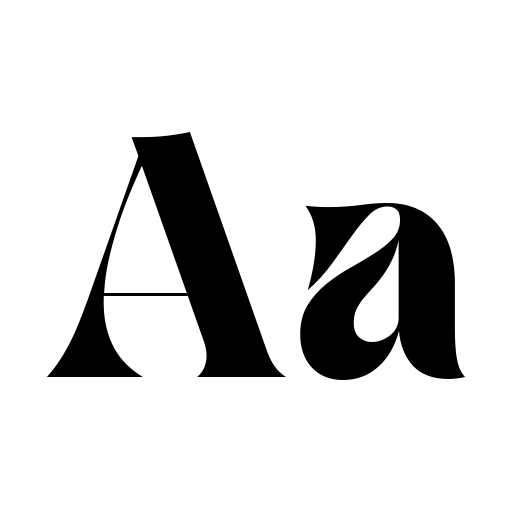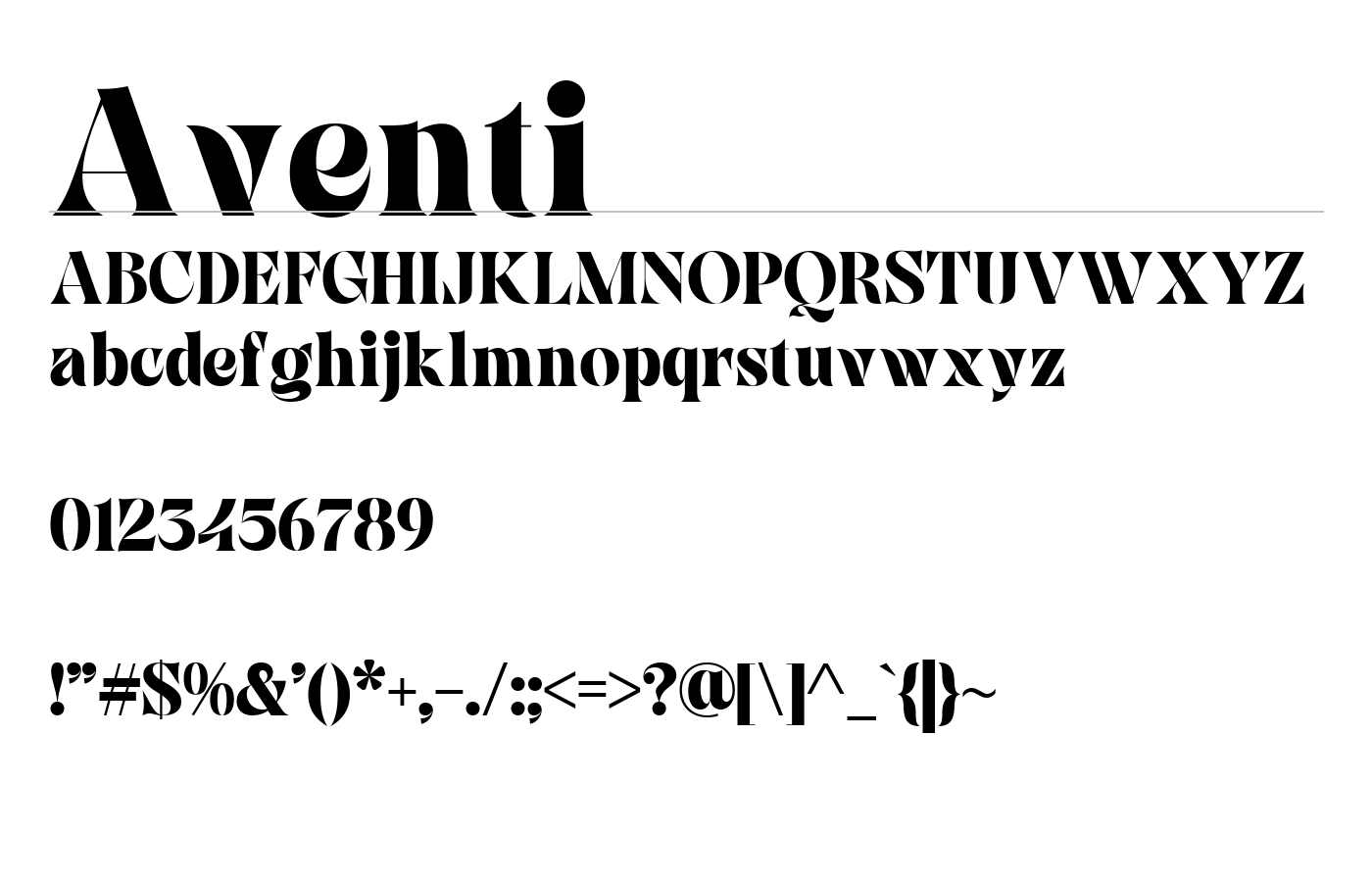
Aventi is a bold serif font with high contrast between thick and thin strokes, featuring sharp, bracketed serifs and a classic Didone style. Its elegant yet strong letterforms convey sophistication and refinement, making it ideal for luxury branding, editorial headlines, and striking logo designs. Aventi's distinctive character shapes and balanced proportions ensure it stands out in contexts where a modern, stylish impression is desired.
Aventi Font
About Aventi Font